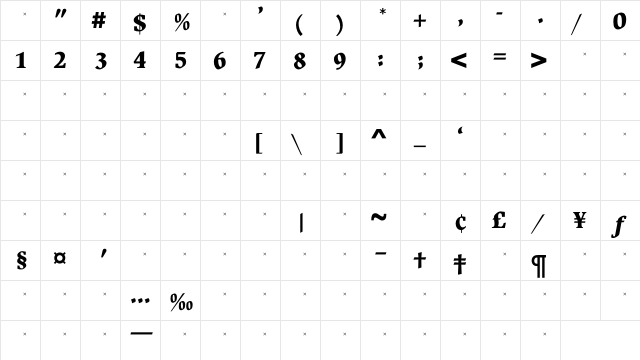
BeckenhamExtraBoldTab Regular
Design Context for BeckenhamExtraBoldTab Typeface
BeckenhamExtraBoldTab takes a measured approach to typography — its balanced proportions and neutral character make it a reliable workhorse for both digital and print work. The heavy weight commands attention and anchors typographic hierarchies.